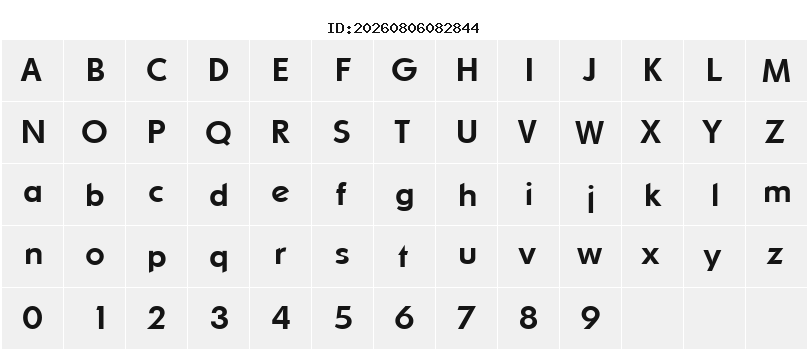
About Ornitons-Medium.ttf
Ornitons-Medium.ttf is a modern, elegant sans-serif font designed for ultimate readability and visual harmony. Perfect for branding, headlines, web design, and print materials.